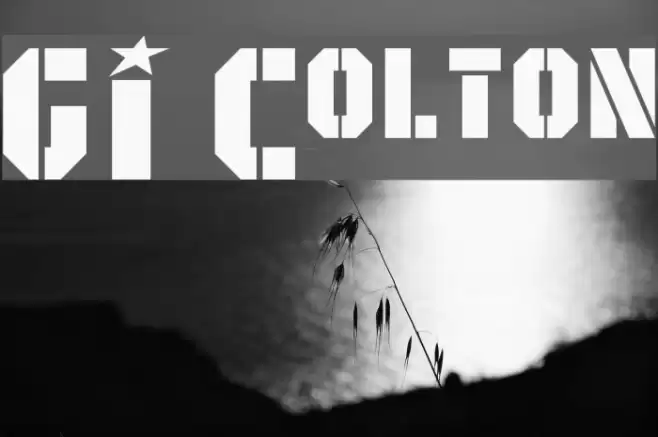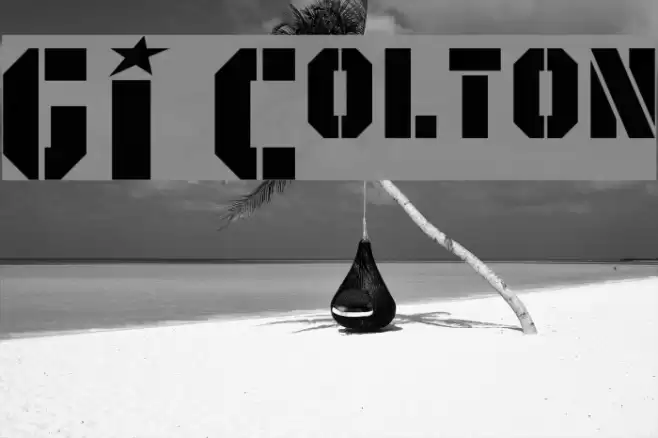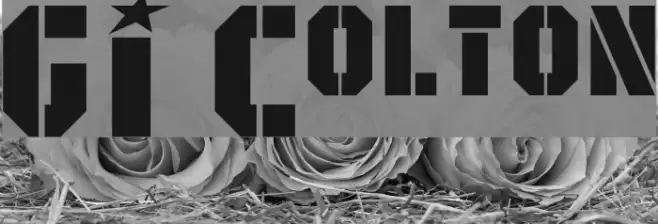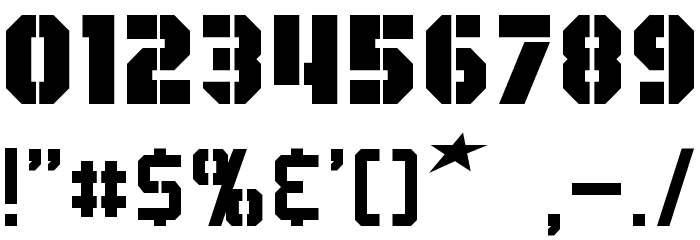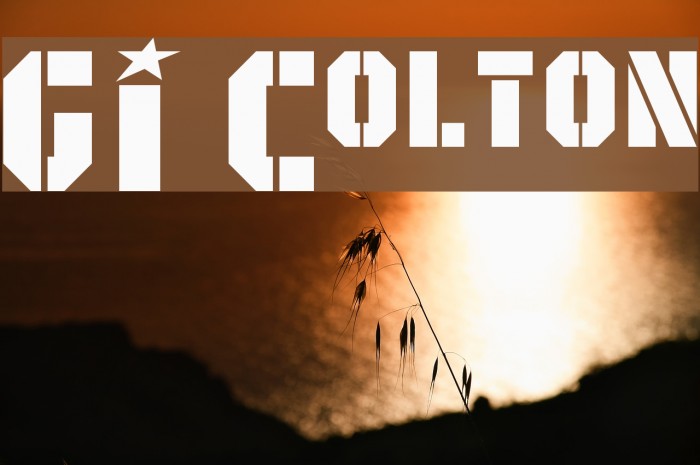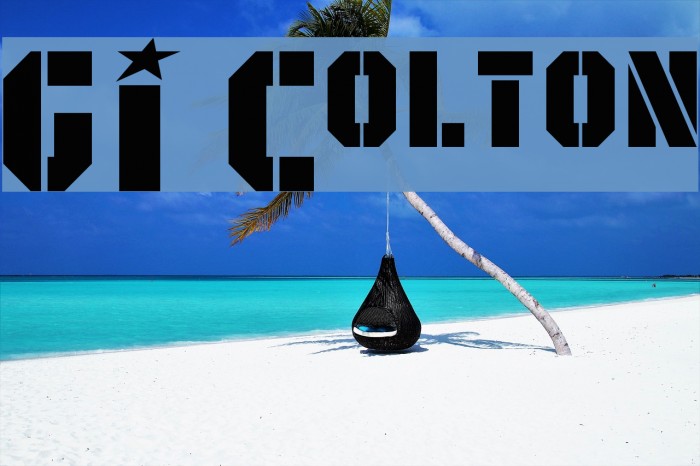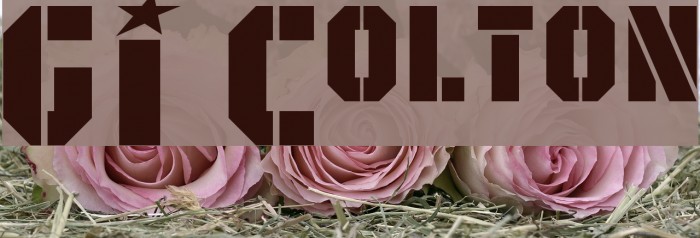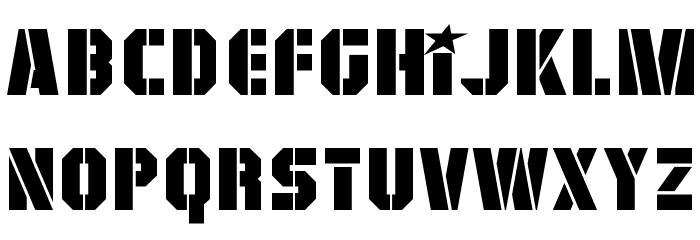
GI Colton Font
GI Colton Description
This font features a bold, geometric design with a distinct stencil-like appearance. Each character is constructed with sharp angles and straight lines, creating a strong and impactful visual presence. The uppercase and lowercase letters maintain a consistent style, with some characters incorporating unique cut-out sections that enhance the stencil effect. The numerals and special characters follow the same design principles, ensuring uniformity across the entire typeface. This font's boldness and geometric structure make it ideal for attention-grabbing designs.
A bold, geometric stencil-style font with sharp angles and cut-out sections.
- Proposed Projects: Ideal for military-themed designs, posters, signage, and branding that requires a strong, impactful look.